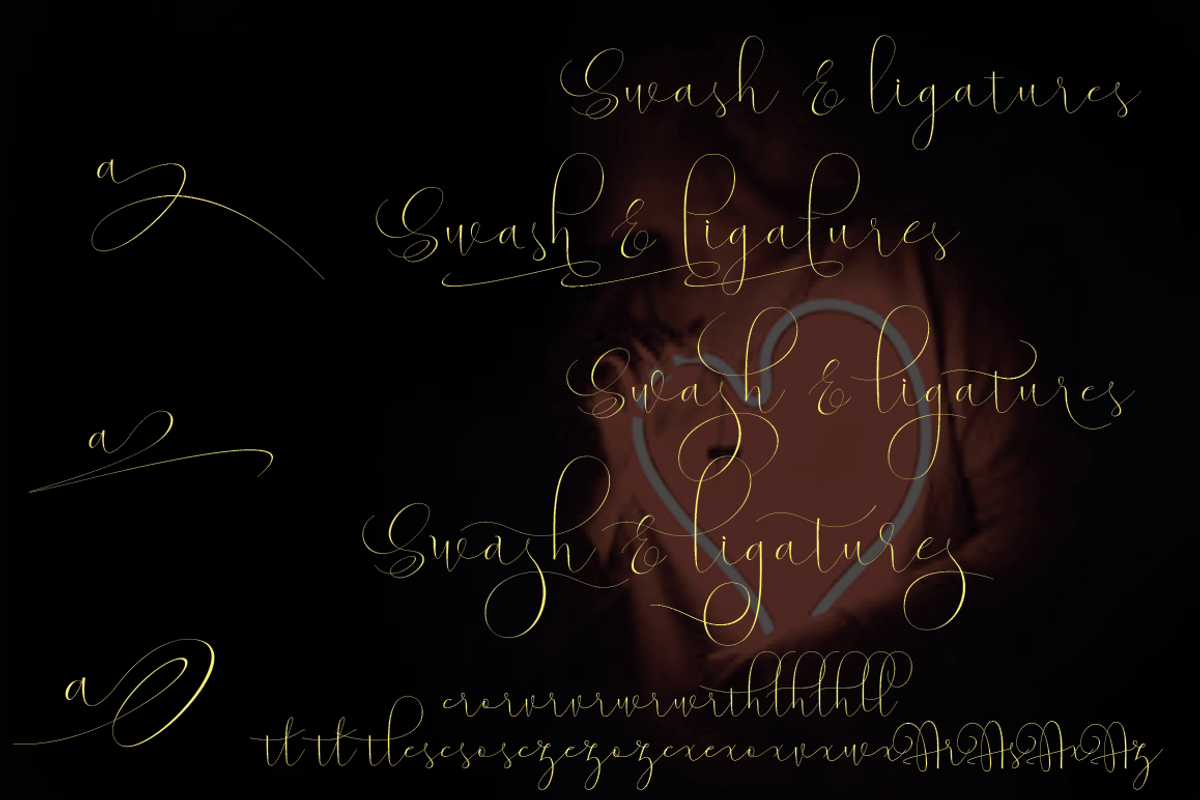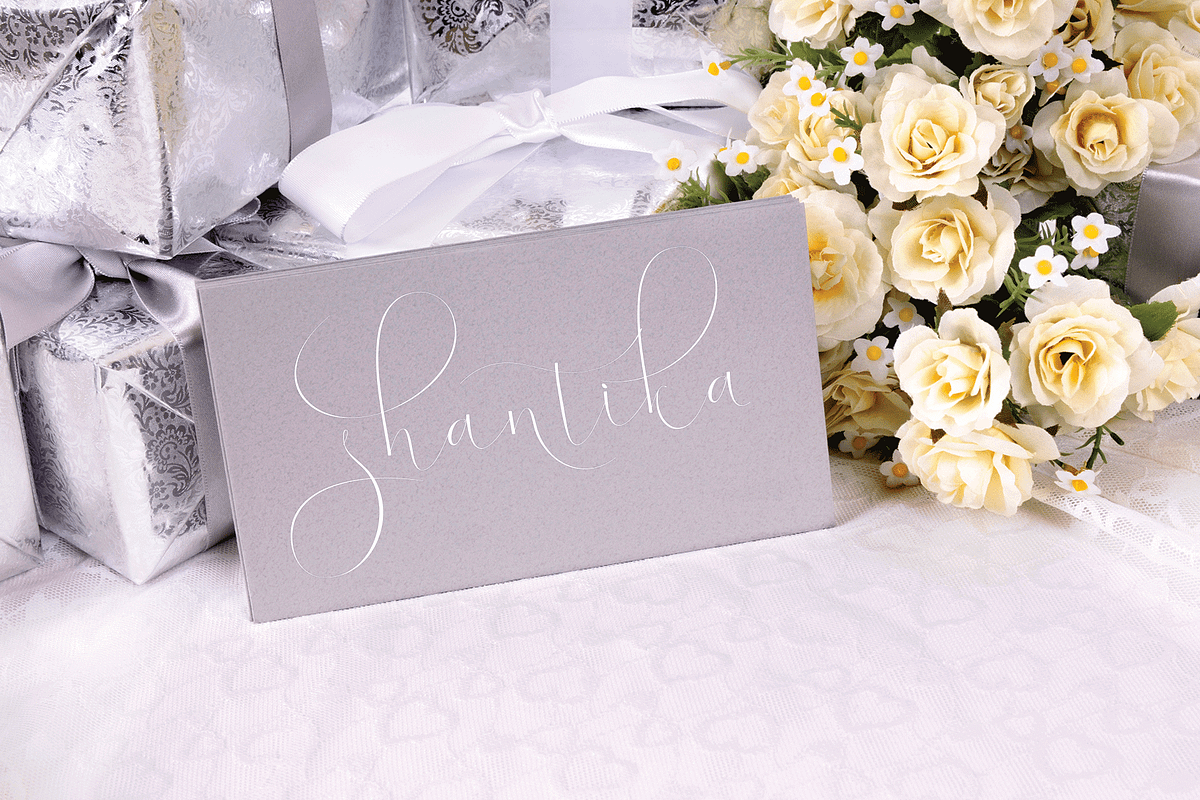
Virgita script
I try to present a font with an interesting touch. It comes in a classic form with a modern twist. This font is suitable for projects such as vintage logos, fashion labels, special card headers, badges, food packaging designs, especially wine labels. This font has a different style in the classic form to make it easier to choose the desired style. , This font Also available some alternative styles that you deserve to try.